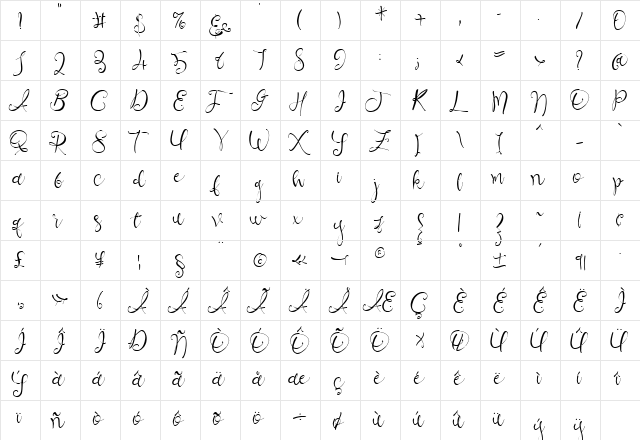
Ochre Script Regular
| Designer | Gizem K |
Design Context for Ochre Script Typeface
Ochre Script brings a calligraphic fluidity to the page — its connecting strokes and expressive curves give it an unmistakably human quality.
Font Pairing: Combine Ochre Script with a simple geometric sans for maximum contrast — the tension between flowing curves and clean structure is a classic typographic pairing.
Pro Tip: Use Ochre Script for short runs of text — names, titles, or taglines. Extended body copy in script faces tires the eye quickly.